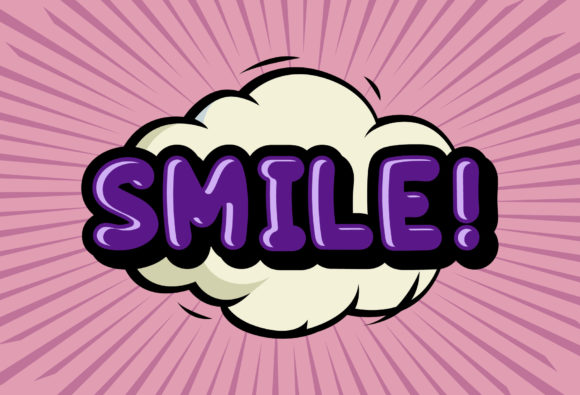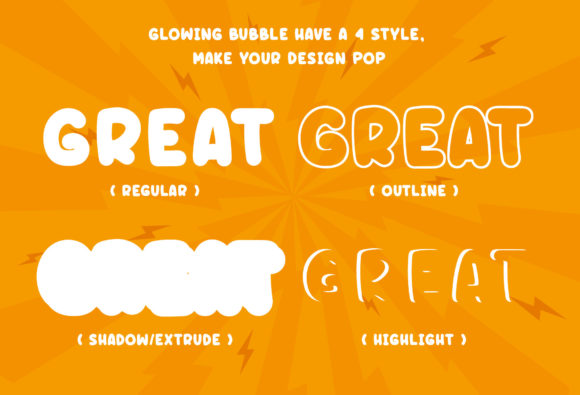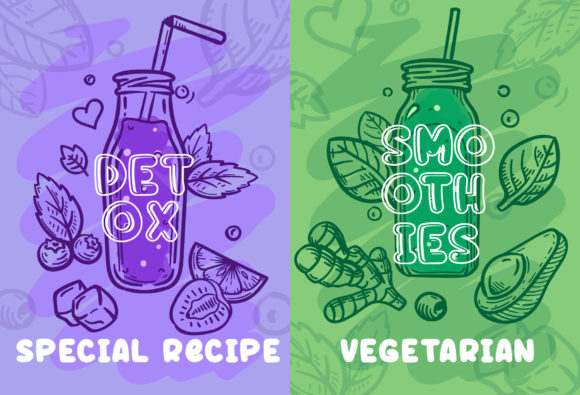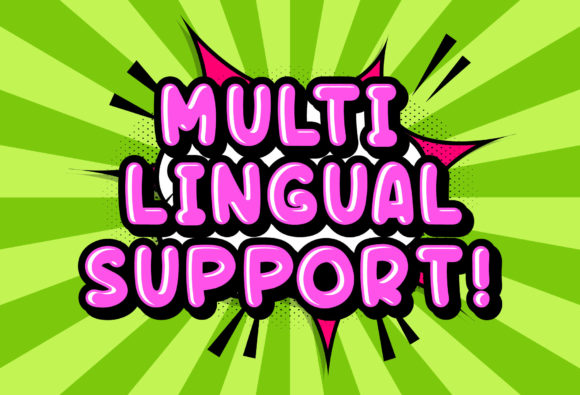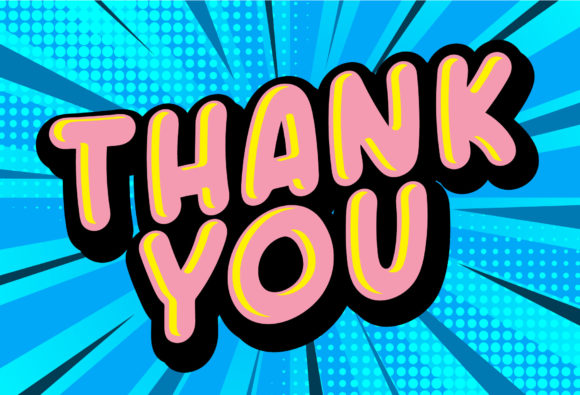
Introduction to Glowing Bubble Font
Glowing Bubble is a bold, retro font that will really make your creations pop.
Perfect for posters or a fun branding project .
Key Features of Glowing Bubble Font
Why Choose Glowing Bubble Font?